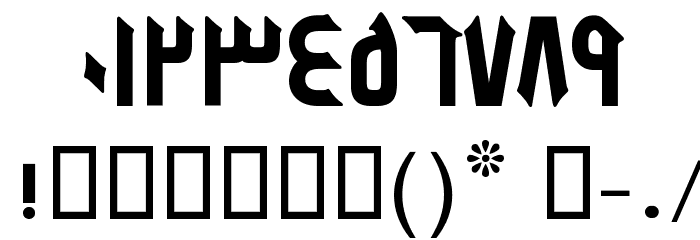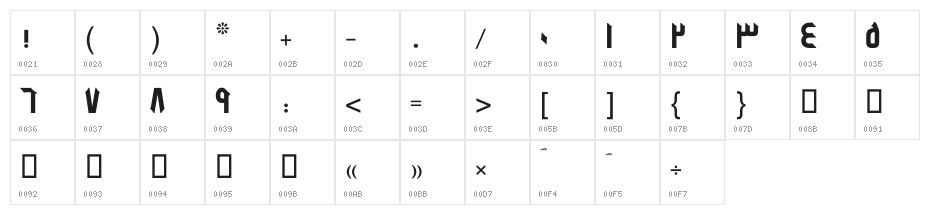
Bolbol I Font
Bolbol I Description
This font features a bold and striking design with strong geometric shapes and a modern aesthetic. The characters are crafted with sharp angles and clean lines, giving it a distinct and contemporary look. The uppercase letters are particularly prominent, with a sense of uniformity and balance. The numerals and special characters maintain the same boldness, ensuring consistency across all elements. This font is ideal for making a statement, whether in headlines or logos, due to its eye-catching and assertive style.
| Proposed Projects | Perfect for branding, logo design, posters, and headlines where a strong visual impact is desired. |